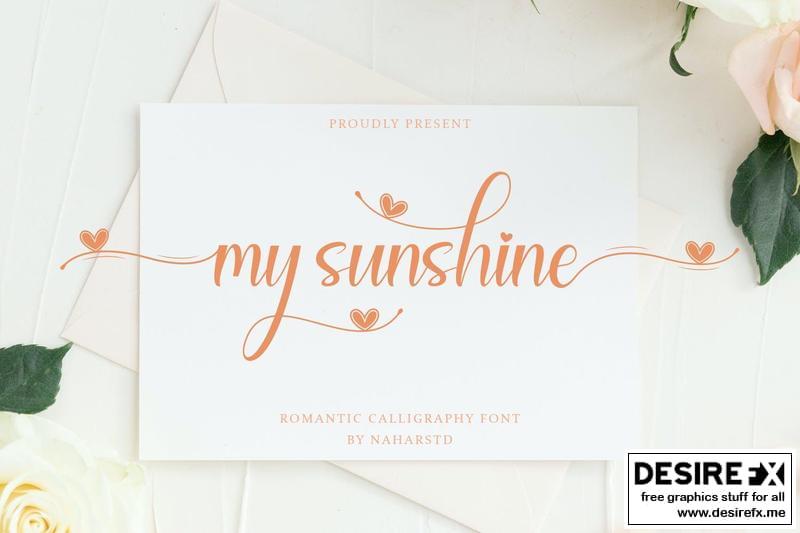
My Shunsine
My Shunsine is a romantic calligraphy font, will be suitable for any projects such as logo’s, branding projects, homeware designs, product packaging, mugs, quotes, posters, shopping bags, t-shirts, book covers, name card, invitation cards, greeting cards, label, photography, watermark, special events, and all your other lovely projects that need beautiful calligraphy taste.
Features :
- Uppercase & Lowercase
- Numerals
- Punctuations (OpenType Standard)
- Accents (Multilingual Characters)
- Ligatures and Alternative Style Stylistic Set